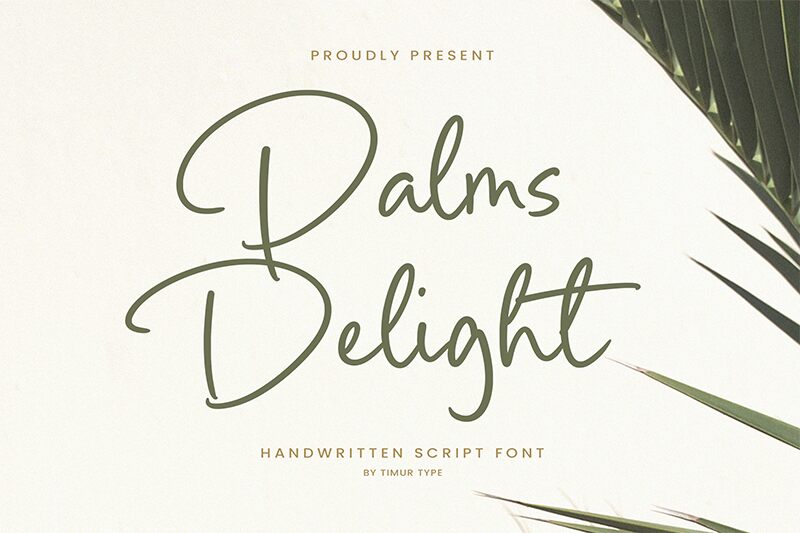
Palms Delight font is a free handwritten font by Timur Type with a flowing and expressive touch. The designer created it to seem a little elegant and clean while maintaining the casual and inviting vibe of handwritten fonts. As a handwritten font, it is highly artistic and personal and delivers an organic natural feel from its letter characters.
Palms Delight font suits your personal projects like invitations, greeting cards, posters, and clothing. The font is excellent for composing your comic strips, drawing figures, and fashion designs. Choose this font also for branding and packaging, social media display, and corporate uses like logo designs, heading, magazines, and advertising.
Palms Delight is a Handwritten Script Font that brings a joyful and playful ambiance to your design projects. With its whimsical letterforms that embody the carefree spirit of tropical palm trees, this font features fluid strokes and organic curves, providing a natural and relaxed aesthetic. It is perfect for adding a laid-back and fun touch to your branding materials, posters, and social media graphics. Whether you're aiming for a beachy vibe or a casual, friendly look, the Palms Delight font offers both versatility and style. Embrace the playful energy of this handwritten script font and infuse your designs with a sense of tropical delight.
The font also supports multilingual characters and features a complete set of the standard alphabet and punctuation.